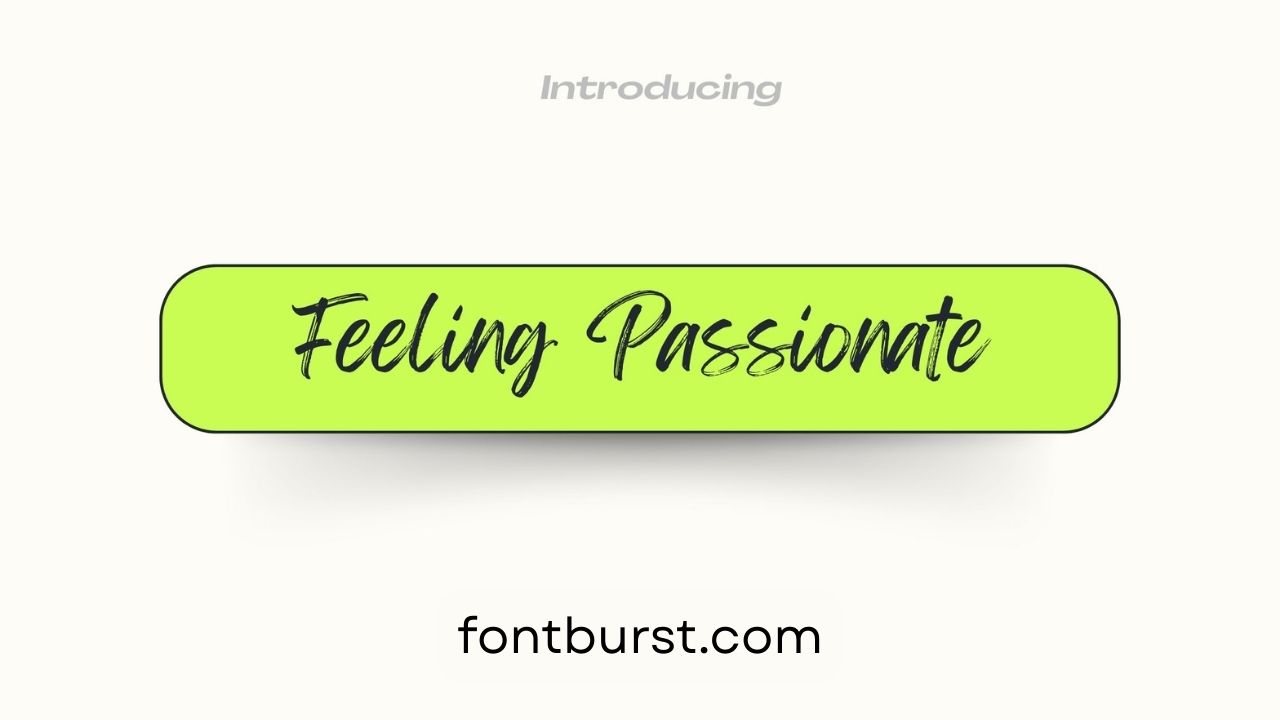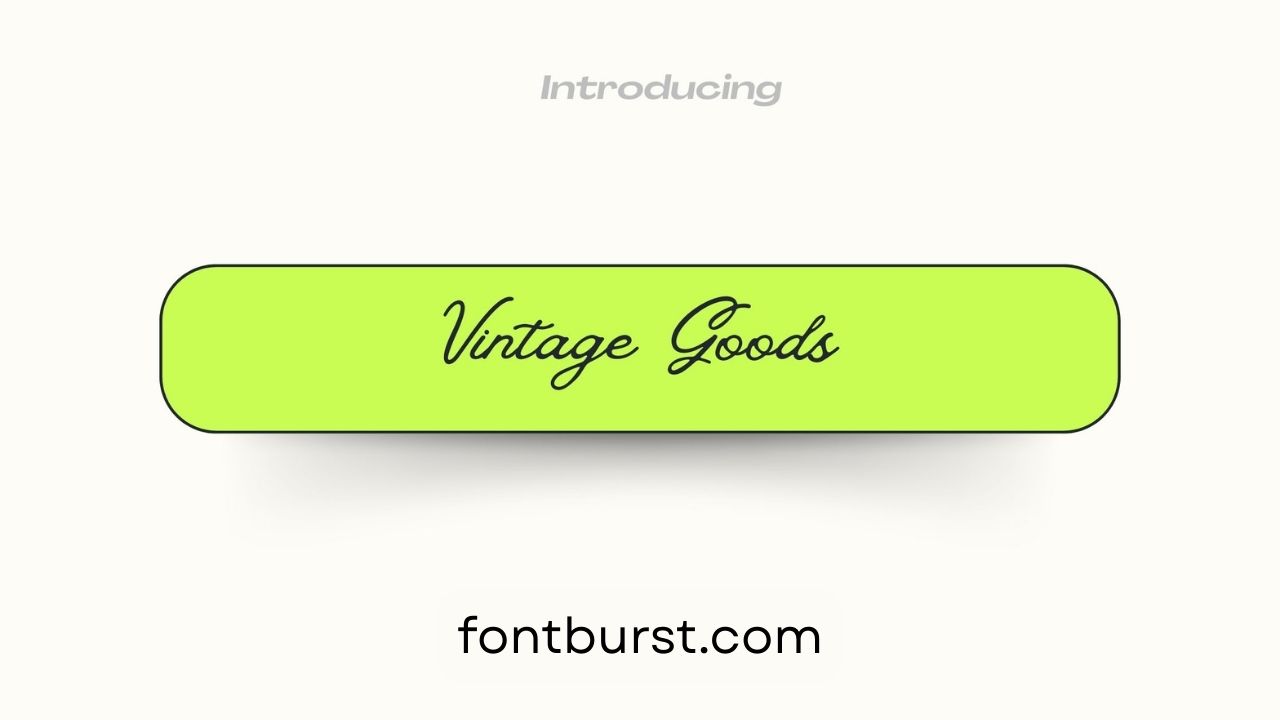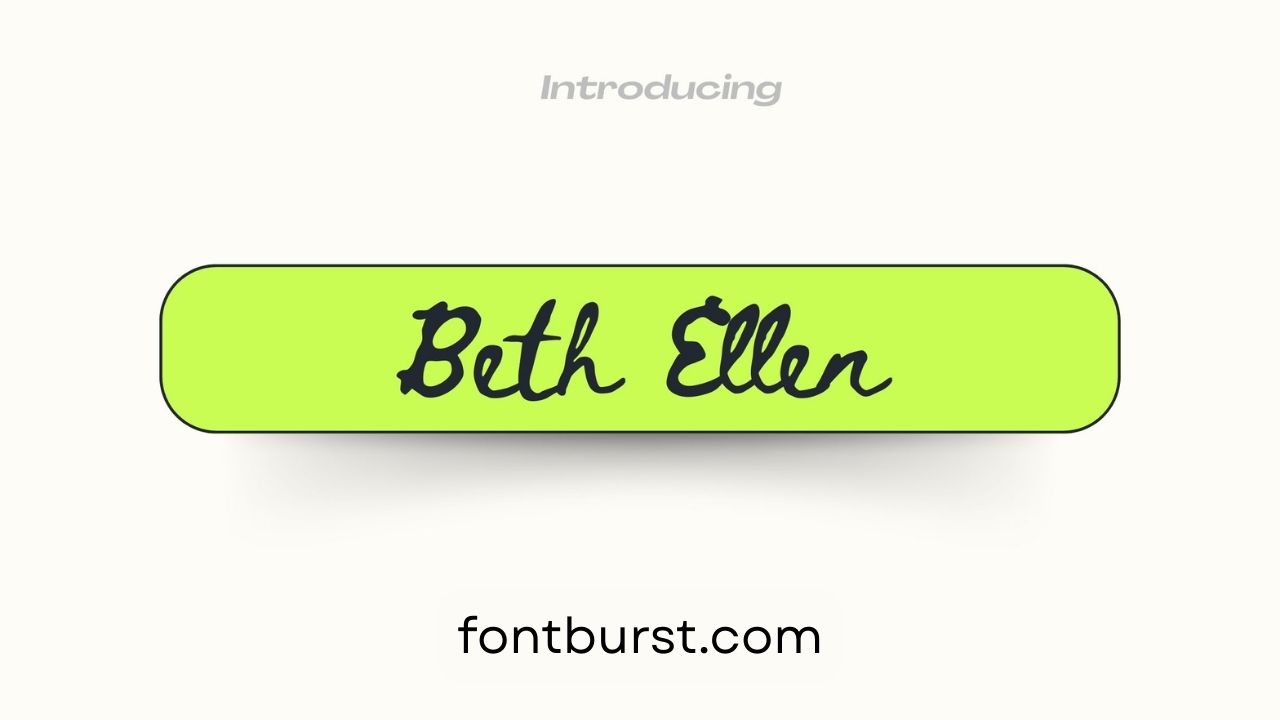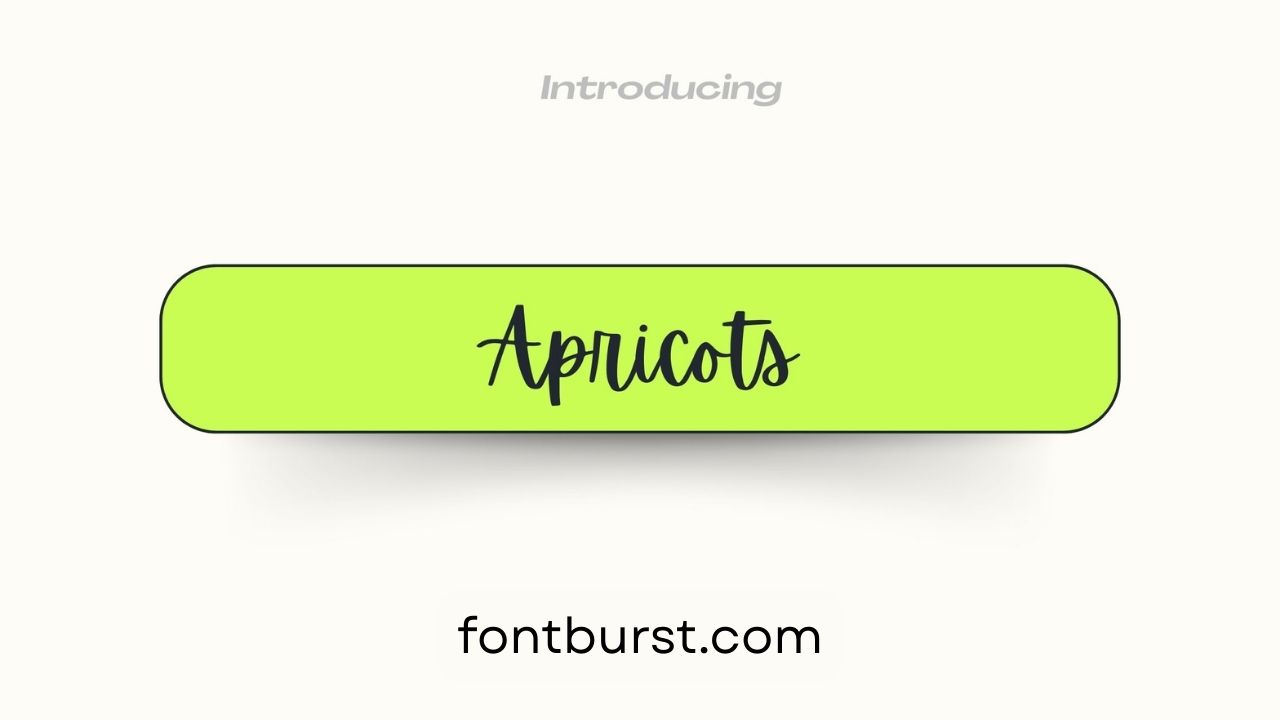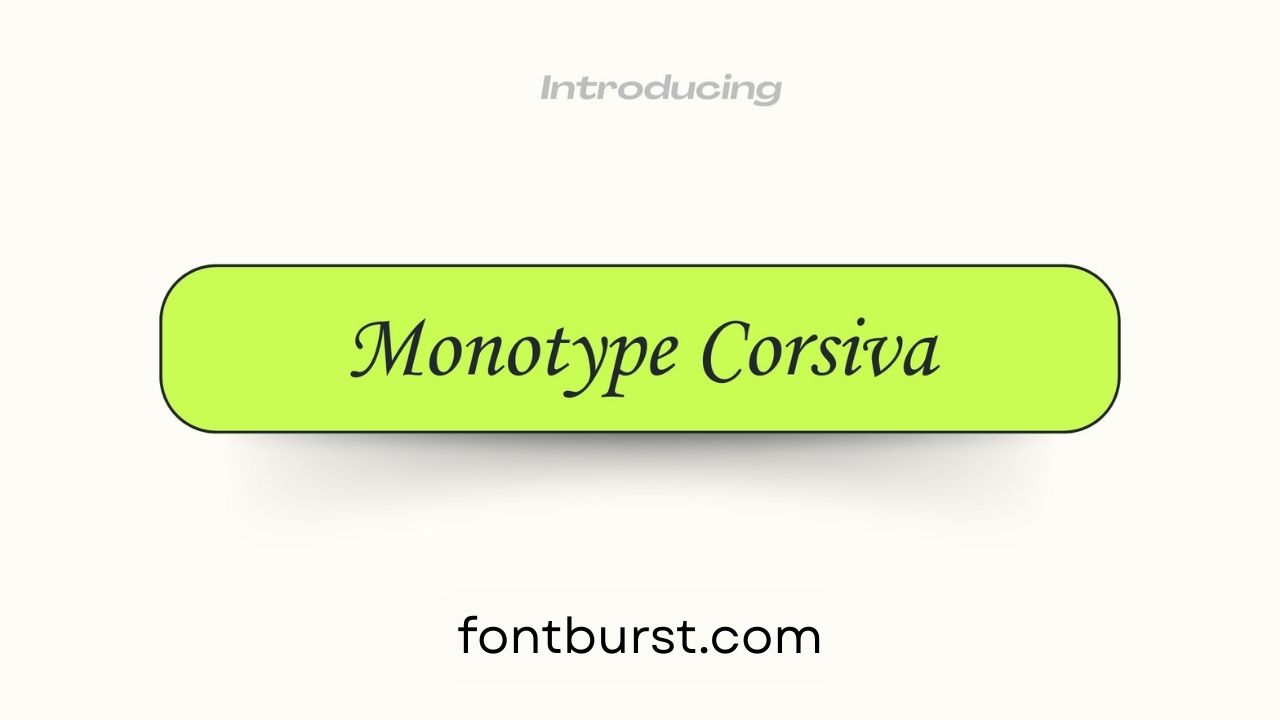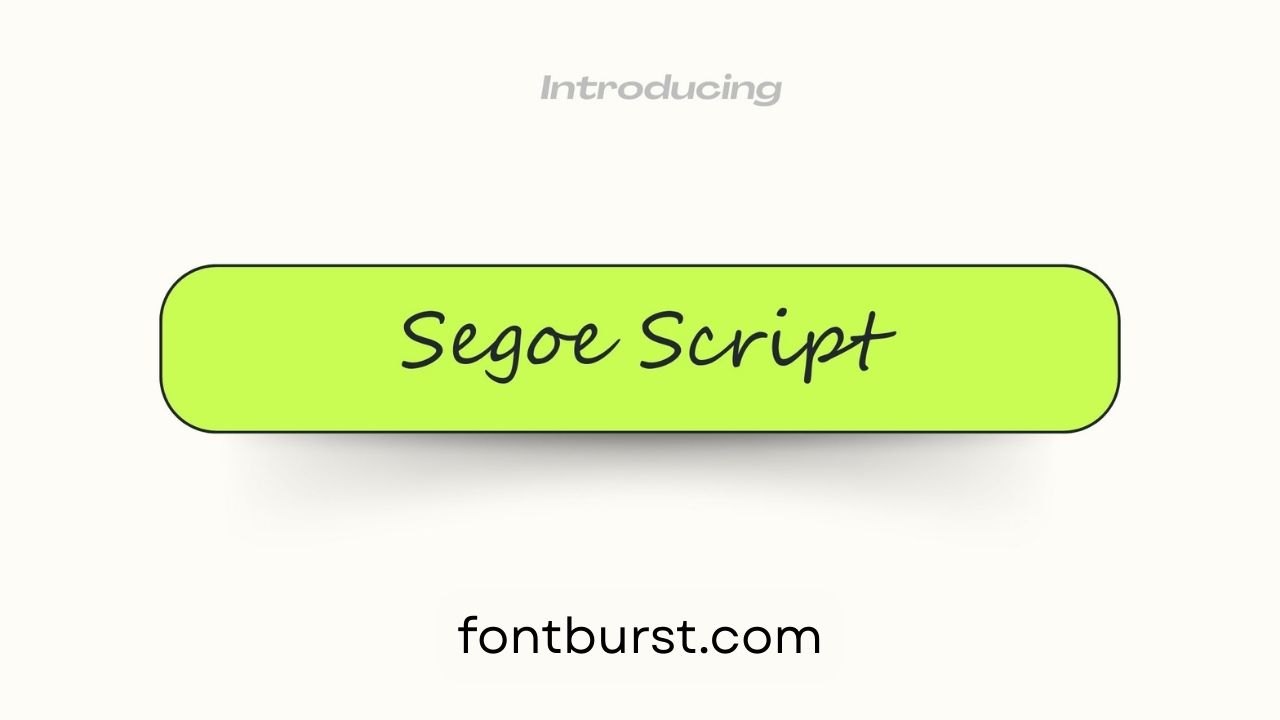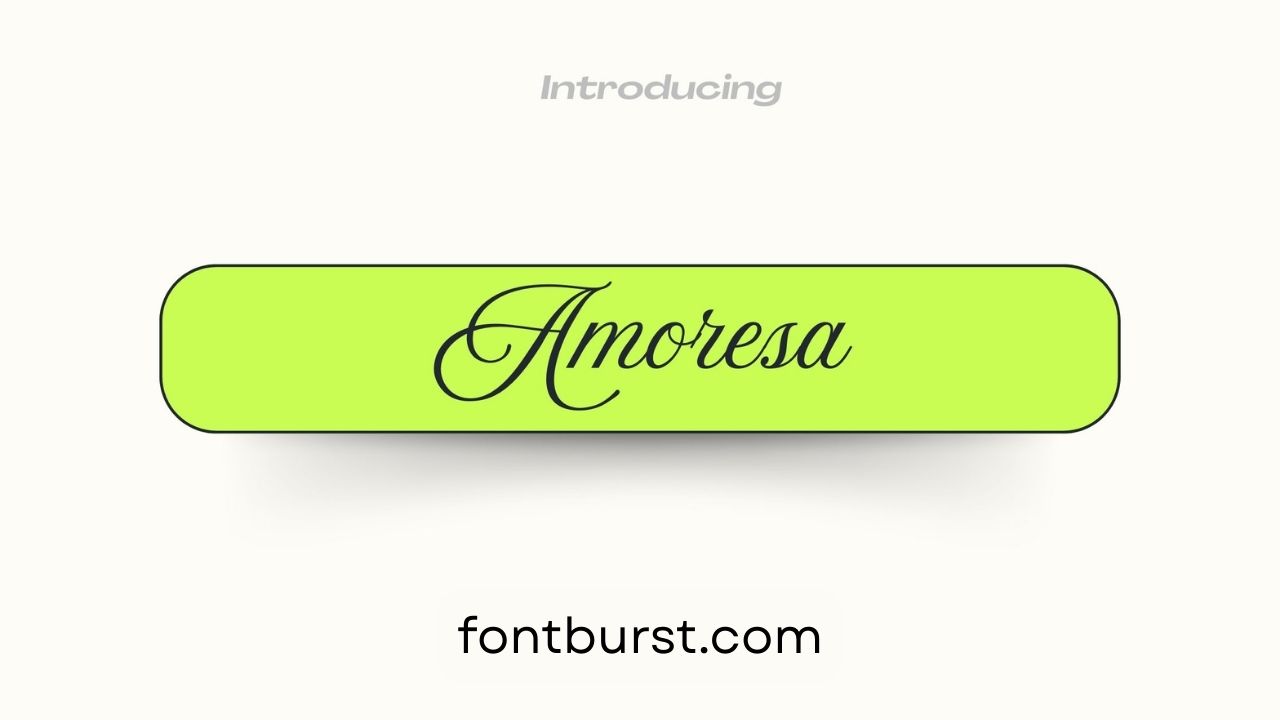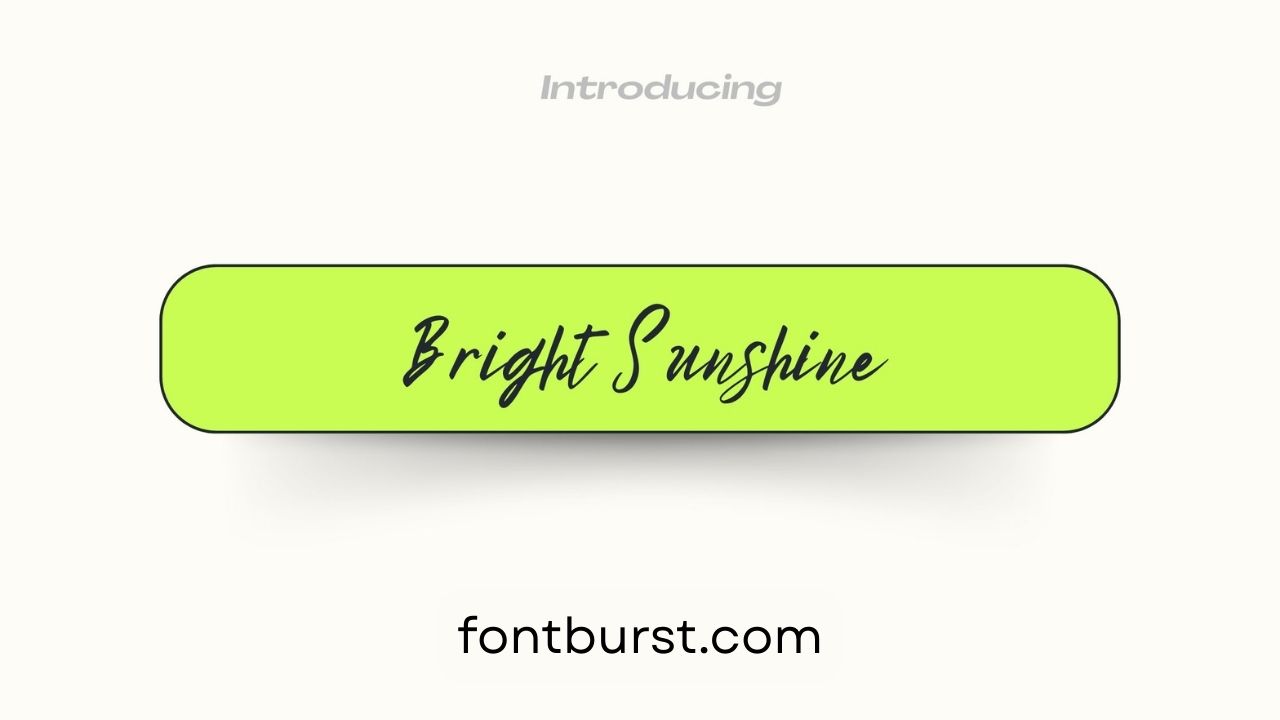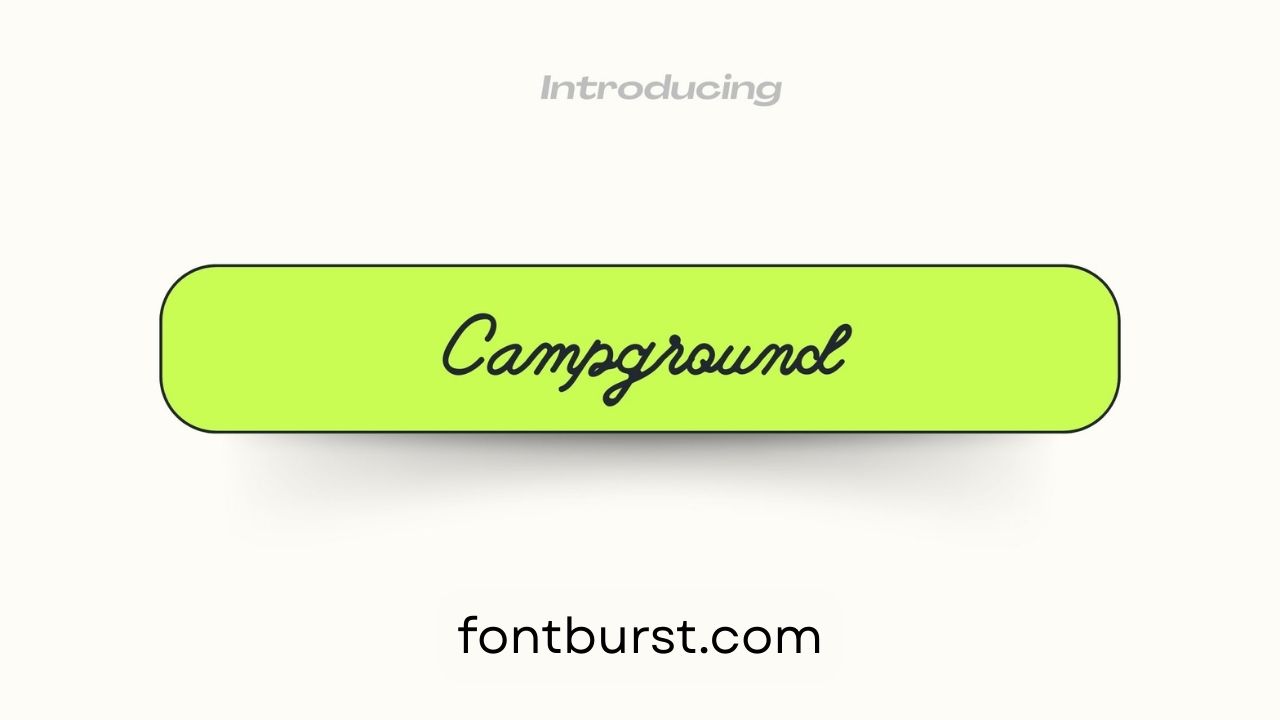
15 Best Cursive Handwriting Fonts in Canva for 2024
Are you looking for the best cursive handwriting fonts in Canva 2024? Cursive fonts make your designs look more elegant, personal, and creative. Some of these fonts can make your text look beautiful and unique, whether you’re making invitations, logos, or posts for social media. With so many options on Canva, it can be challenging to know which fonts to choose.
In this article, we’ll look at 15 of the best cursive handwriting fonts in Canva for 2024. These fonts range from classic to modern styles, offering the perfect choice for any design need. Each font brings its own personality, allowing you to add a special touch to your projects.
Why use Cursive Fonts?
Cursive fonts are not just about adding style. They add a graceful flow to the text, making designs appear elegant and personal. Cursive fonts are perfect for special occasions, brand logos, and even social media graphics. Use cursive fonts to give your text a touch of charm and creativity. These fonts make your message stand out, offering a sophisticated yet friendly feel.
Feeling Passionate Font
Feeling Passionate has a soft, flowing style that creates an emotional and romantic atmosphere. Ideal for wedding invitations or love letters, its smooth curves and elegant lines make it a go-to choice when you want to create something special and heartfelt.
Vintage Goods Font
Vintage Goods fonts delivers a nostalgic, old-fashioned style. This font is perfect for retro designs, giving your work a classic feel reminiscent of the past. It’s ideal for posters, labels, or anything where you want to showcase a vintage, timeless look.
Alex Brush Font
Alex Brush offers an elegant cursive style that’s perfect for formal uses. Whether you’re designing a brand logo or formal invitations, this font’s clean and sleek lines make it simple to read while still keeping a sophisticated appearance.
Beth Ellen Font
Beth Ellen has a fun, casual feel, making it a fantastic choice for informal designs. Its lighthearted style is suitable for greeting cards or friendly flyers, offering a cheerful and approachable look that feels easygoing and relaxed.
Apricots Font
With their rounded letters, apricots have a playful and sweet appearance. This font is perfect for lighthearted designs; it pairs well with party invites or fun banners. Its simple, charming style gives a youthful and carefree appearance.
Monotype Corsiva Font
Monotype Corsiva offers a formal and traditional look. This classic cursive font is perfect for certificates or formal invitations. Its graceful, flowing letters bring a polished and refined style that’s ideal for when you need something more serious.
Segoe Script Font
Segoe Script combines modern style with elegance. This font works well for both casual and formal uses, such as branding or invitations. Its simple yet stylish design ensures readability while maintaining a polished and professional look.
Amoresa Font
Amoresa stands out with its bold, confident strokes. Ideal for titles or eye-catching designs, this font helps your text grab attention instantly. Strong, flowing lines add a stylish, contemporary look that demands attention.
Bright Sunshine Font
Bright Sunshine brings a lively and upbeat feel to your work. This energetic font is perfect for cheerful designs like party invitations or event flyers. It has a fun and bold appearance that makes your text shine.
Campground Font
Campground offers a rustic, earthy feel. This cursive font is perfect for nature-themed designs or outdoor events. Its natural, hand-drawn style gives a relaxed, back-to-nature vibe that works well in organic, eco-friendly settings.
Badger Script Font
Badger Script features a modern, trendy look. Ideal for branding or fashionable designs, this font gives a sleek, stylish feel to your text. It’s perfect when you want a contemporary, clean look that’s both cool and readable.
Fearless Font
Fearless delivers bold, daring strokes that make a statement. Perfect for striking headlines or bold design work, this font grabs attention with its thick, fearless lines. When you want to create something that stands out and leaves a strong impression, use it.
Ghisella Font
Ghisella brings smooth, elegant cursive to the table, making it ideal for luxury or formal designs. Its graceful, flowing letters work beautifully for upscale branding, wedding invitations, or anything that requires a touch of sophistication.
Vintage Moon Font
Vintage Moon gives off a retro, nostalgic vibe. This cursive font has a unique, old-school feel that’s perfect for designs that need a vintage look. Its classic style transports you back in time, making it a wonderful choice for themed works.
Railey Font
Railey offers a simple, classy cursive style that works for a wide range of uses. Whether you’re aiming for something formal or casual, this font’s clean lines ensure it stays readable while adding an understated, elegant feel.